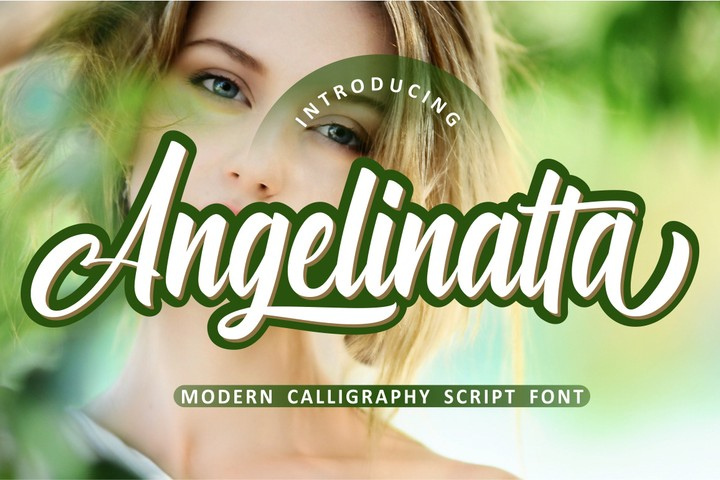
Angelinatta Font
Angelinatta Font is perfect for ethereal wedding invitations, heavenly spa branding, celestial fashion campaigns, angelic beauty product labels, divine event materials, spiritual wellness centers, sacred ceremony invitations, romantic greeting cards, heavenly boutique signage, and graceful feminine branding.
What makes Angelinatta Font so exciting is its extraordinary ability to embody celestial grace and divine femininity through letterforms that seem to float with angelic lightness and radiate heavenly beauty with every character. This ethereal typeface captures the essence of divine elegance and spiritual grace with characters that communicate both earthly sophistication and celestial purity. The font's heavenly design elements perfectly balance spiritual transcendence with contemporary elegance, creating an indispensable tool that communicates divine beauty, angelic grace, and spiritual refinement, making it essential for brands and projects that celebrate the sacred feminine and divine aspects of beauty, love, and spiritual connection.
The celestial precision in Angelinatta Font makes it particularly effective for wellness industries and spiritual organizations where conveying divine femininity and angelic grace is crucial for connecting with audiences seeking spiritual beauty and transcendent experiences. Its ethereal letterforms work beautifully across both print applications and digital platforms, maintaining consistent heavenly appeal whether used for intimate spiritual materials or broader wellness brand communications.
Spiritual branding professionals appreciate how Angelinatta Font transforms ordinary communications into divine expressions of celestial beauty and angelic grace. The typeface's heavenly character set includes special spiritual symbols, divine decorative elements, and angelic alternates that enhance the overall celestial atmosphere of any spiritually-focused project.
For creative professionals serving wellness centers, spiritual organizations, and feminine lifestyle brands, Angelinatta Font serves as the perfect foundation for establishing memorable visual identities that capture the essential qualities of divine femininity, celestial grace, and spiritual beauty that define successful brands celebrating the sacred aspects of feminine power and divine connection.